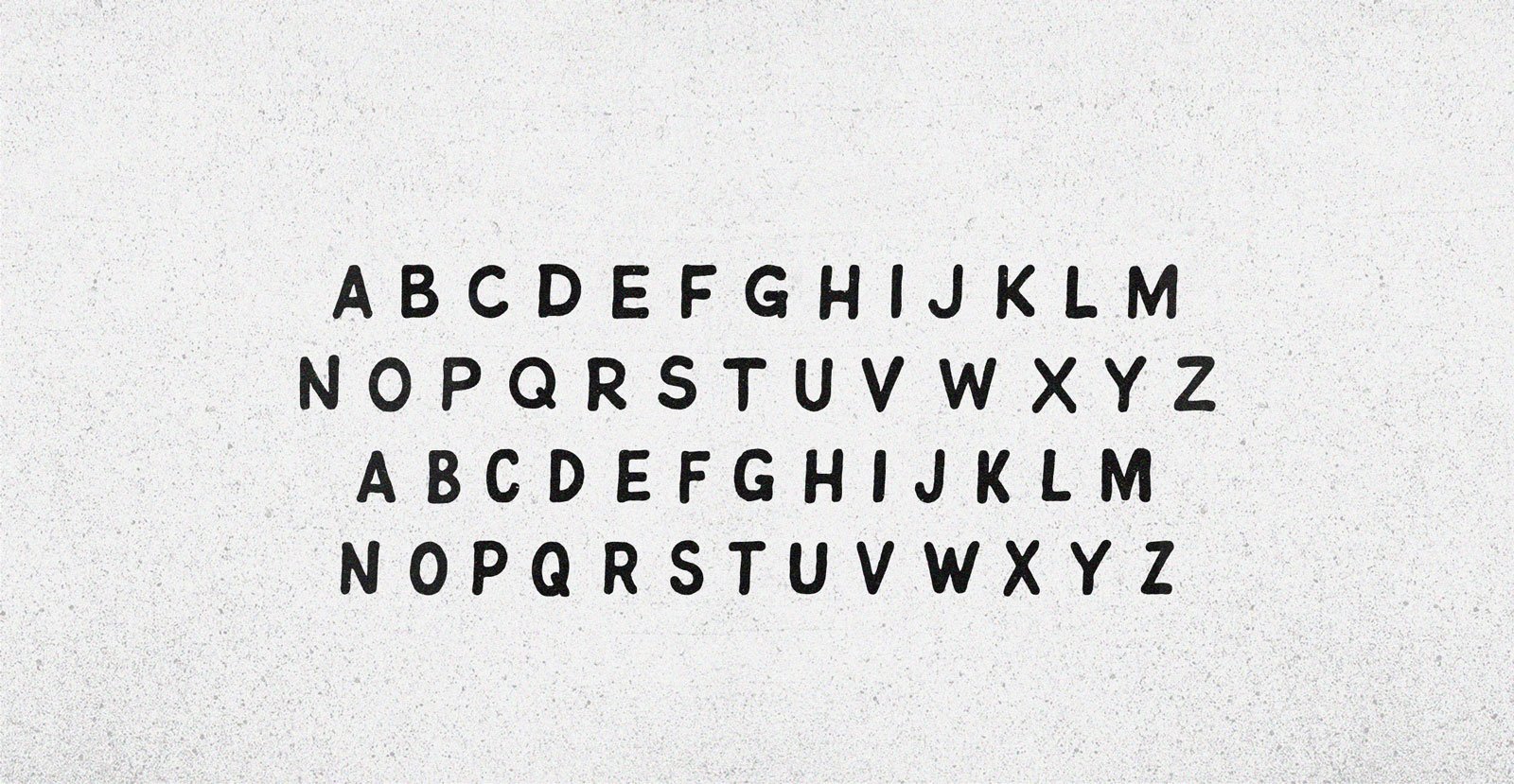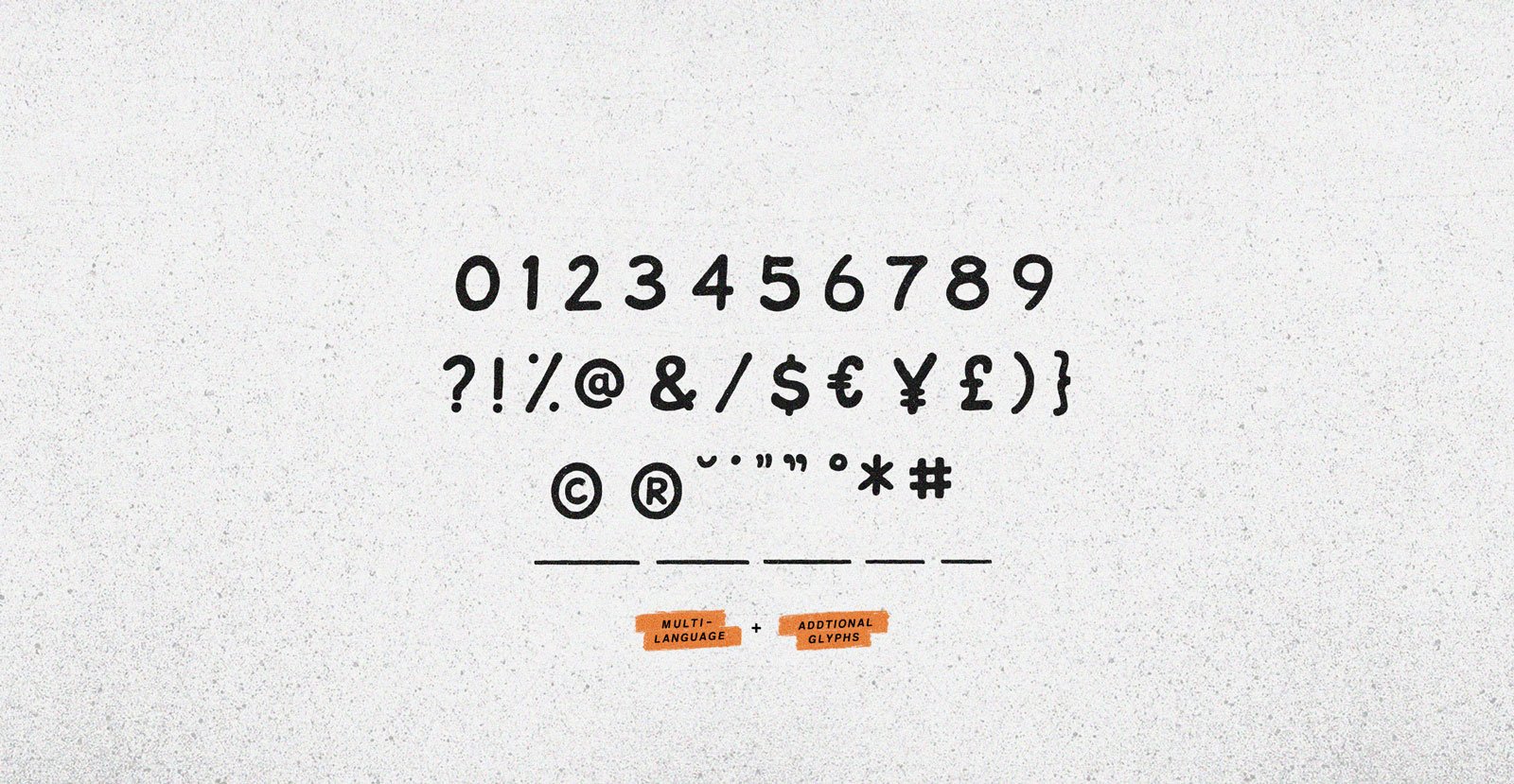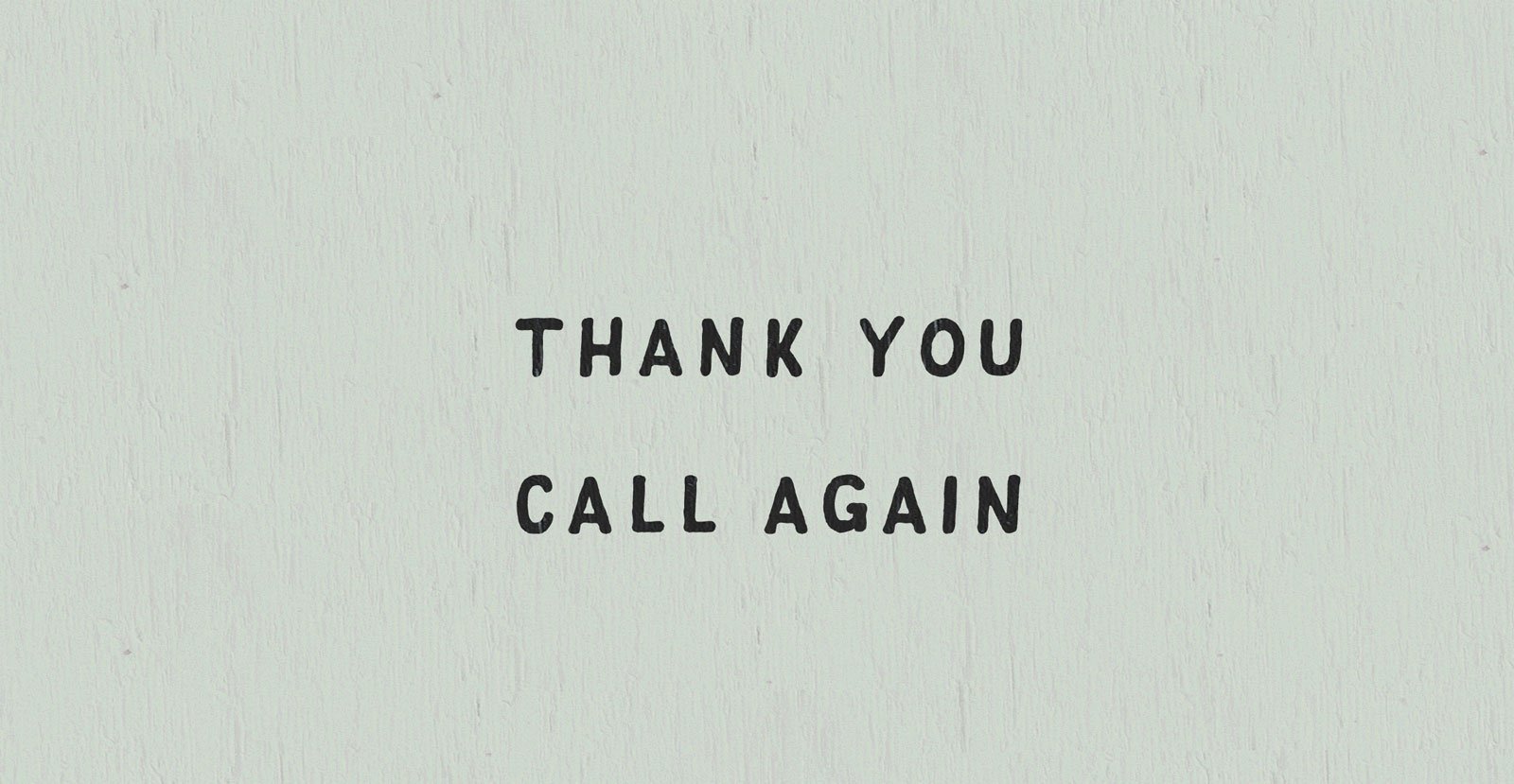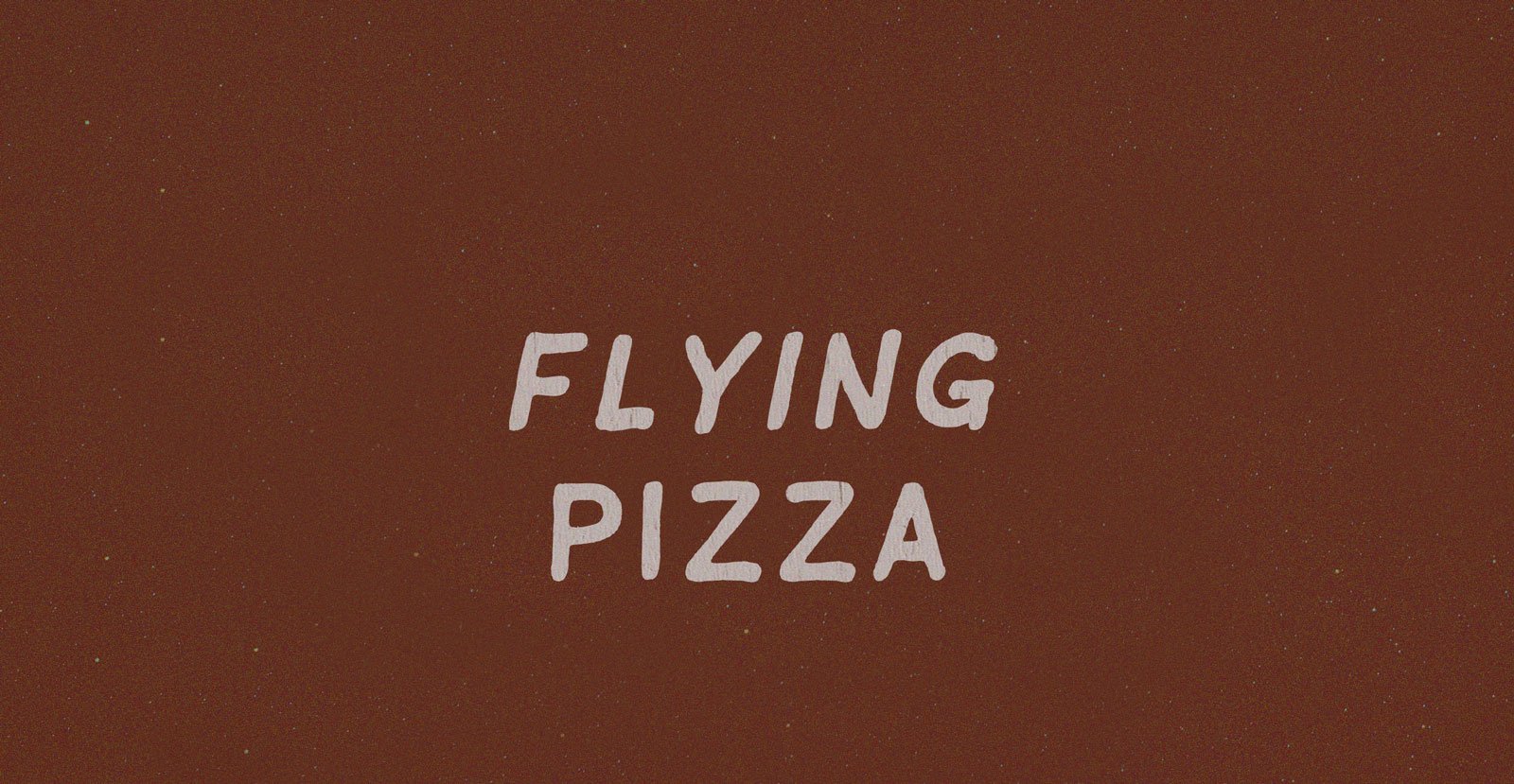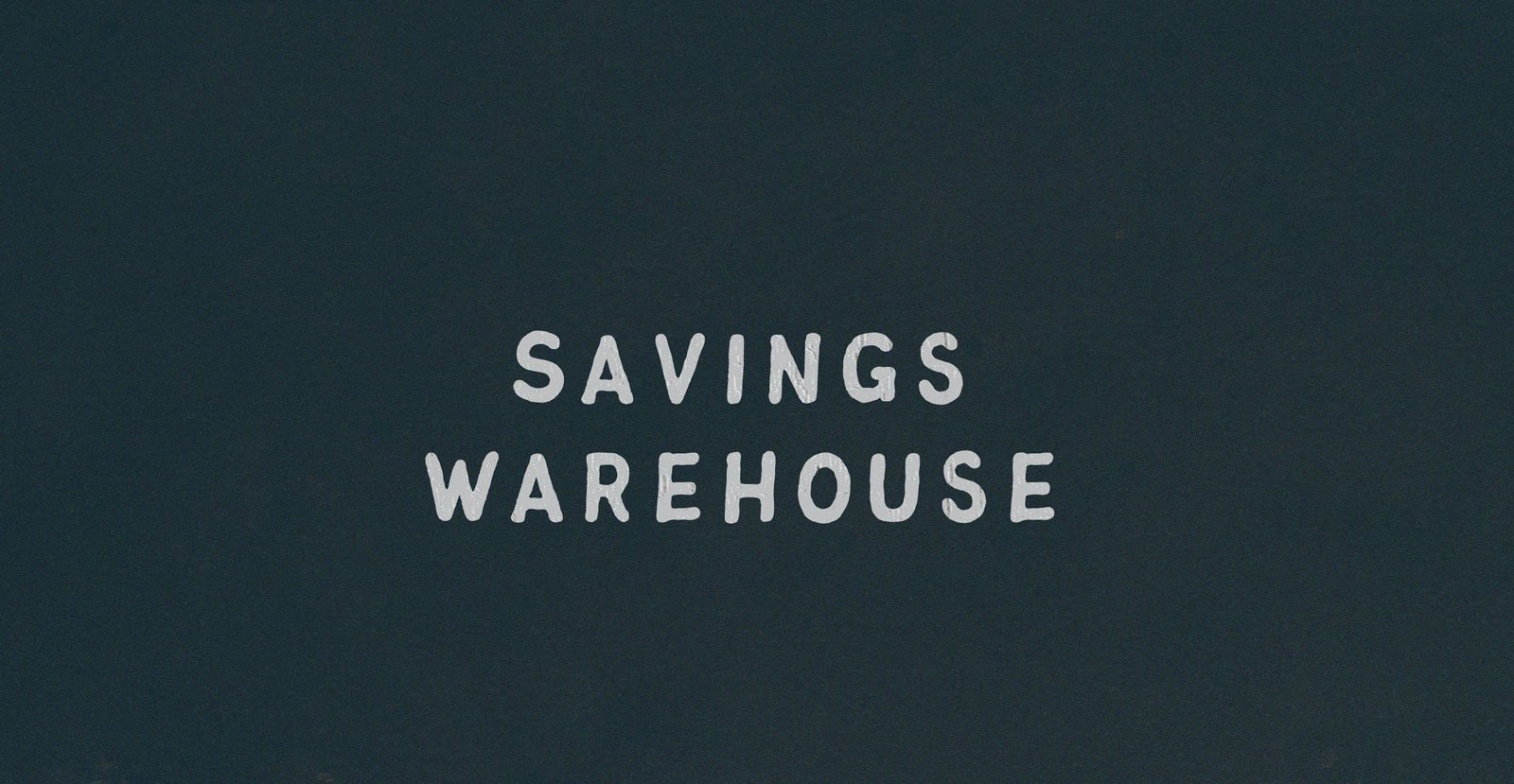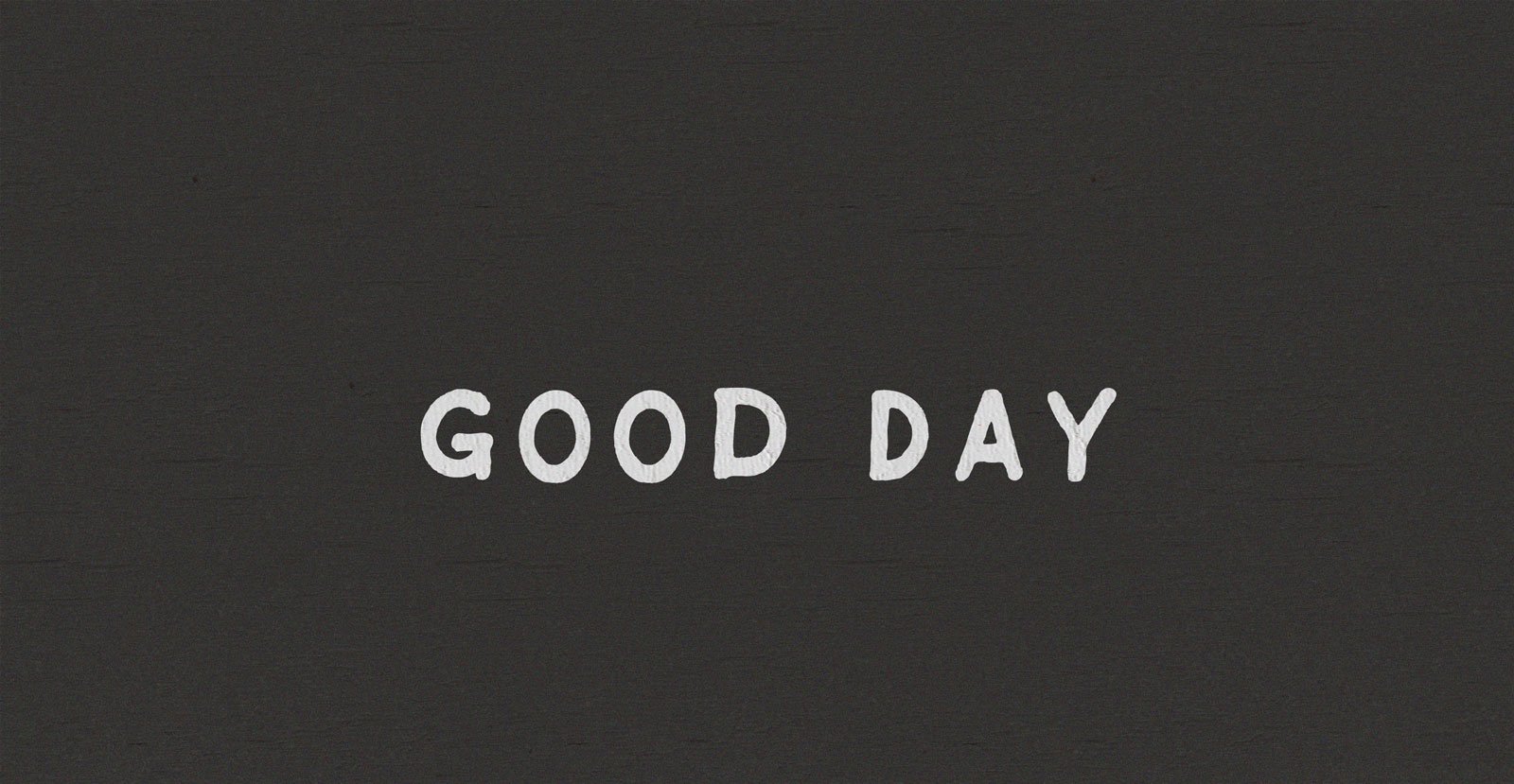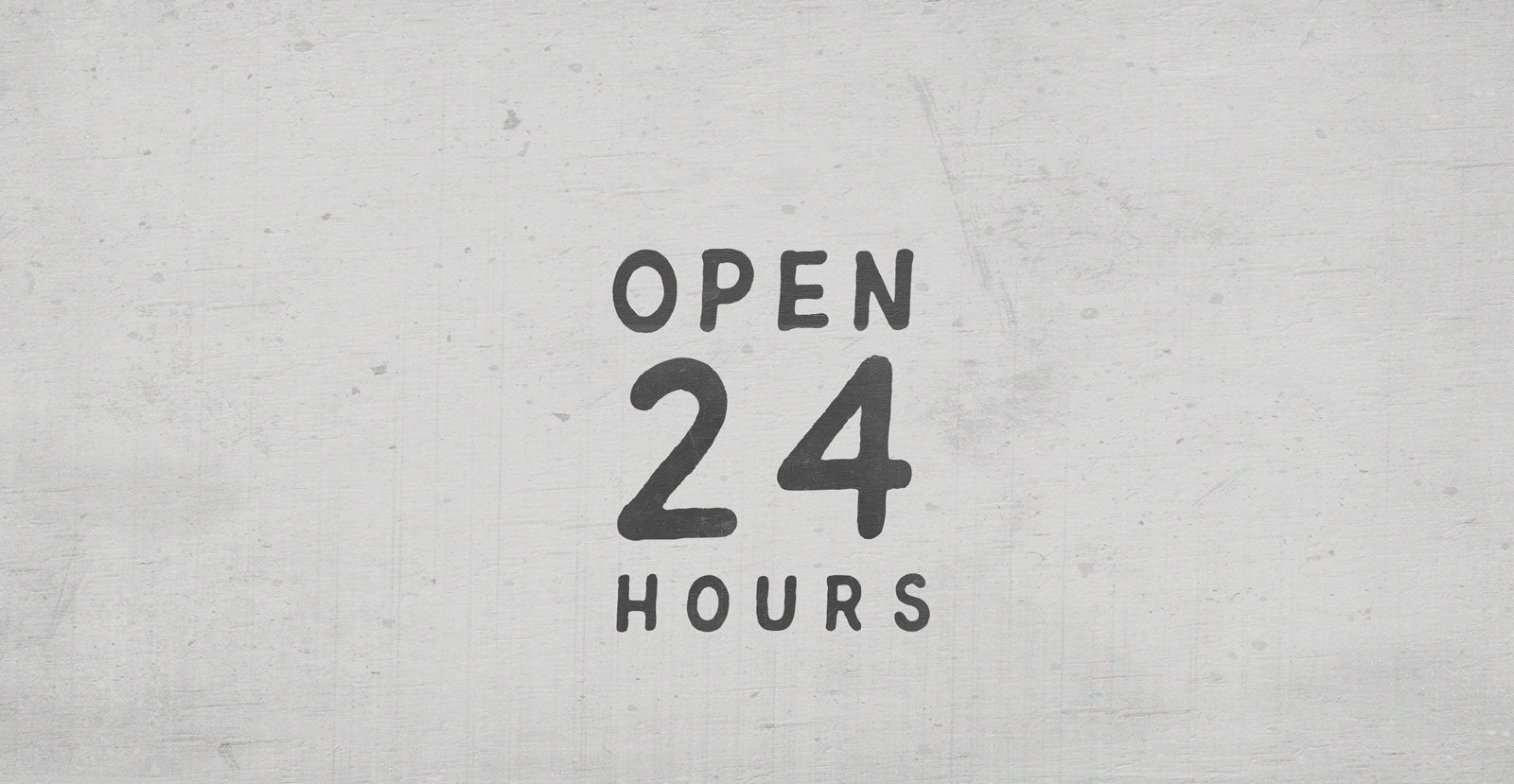
Jitter Bug
Handwritten Sans Serift Font
Frenetic leftovers of the only way to play. Lost generations of anxious insects asking, am I a Jitter Bug? Gambling on propositions, gaming probabilities, playing ceteris paribus like, I like big buttons and make-believe; like I can see what it is I'm pushing.